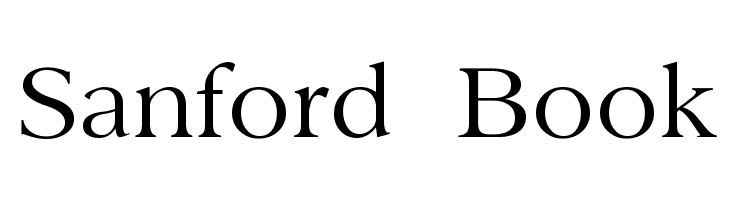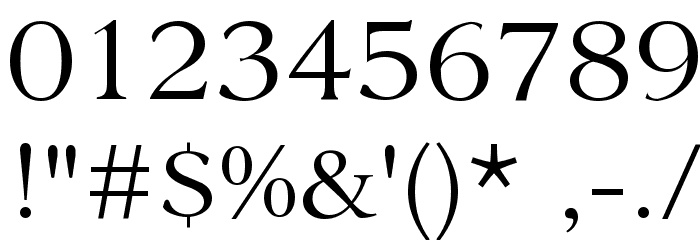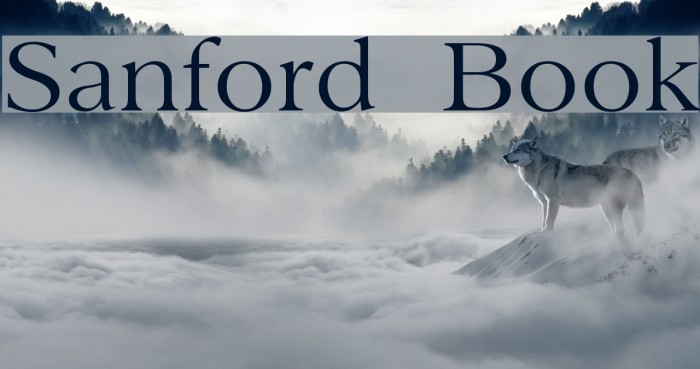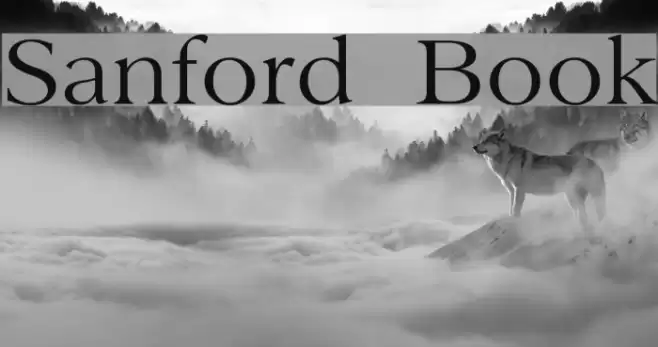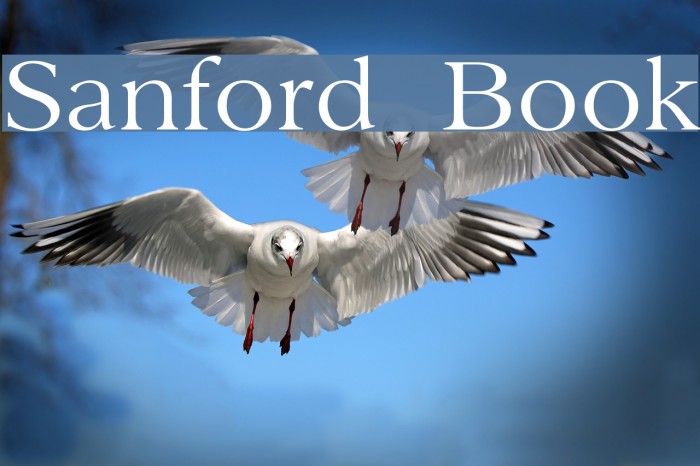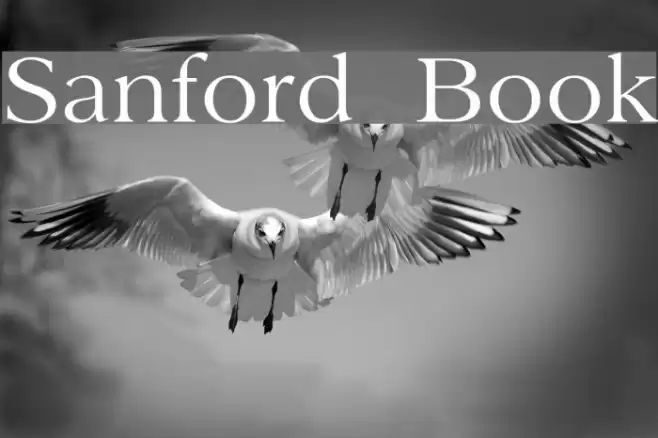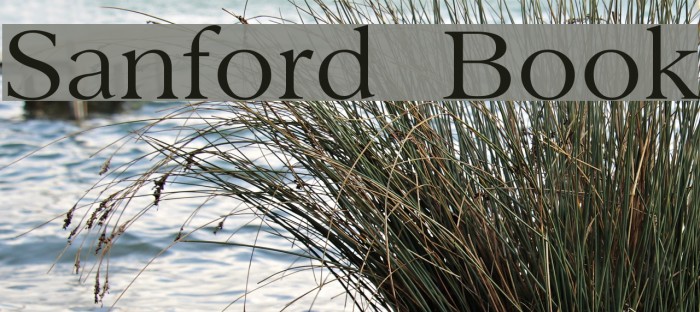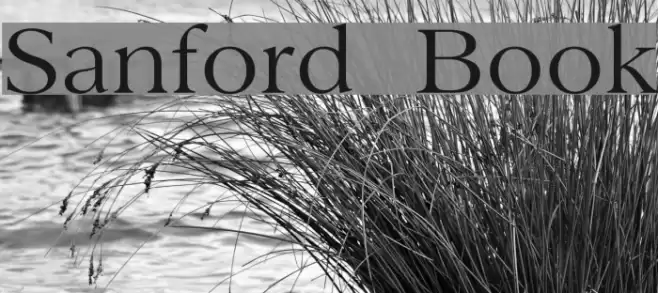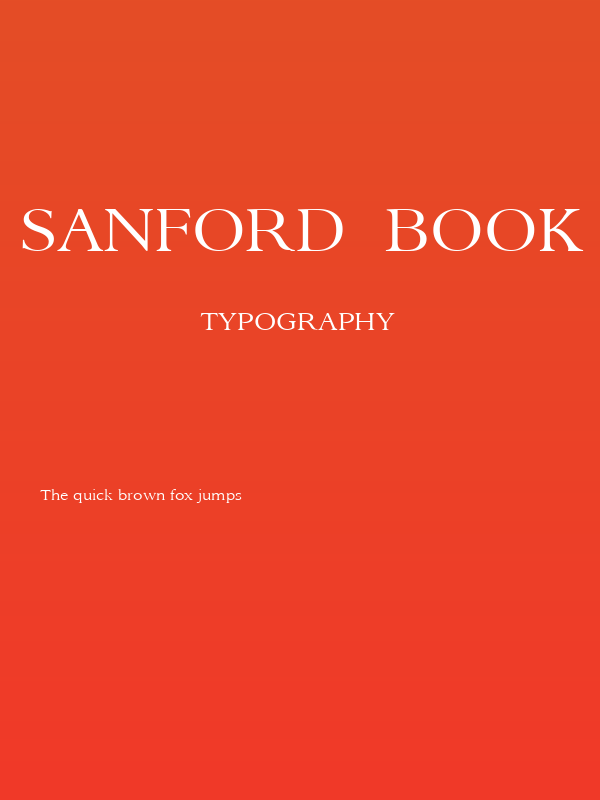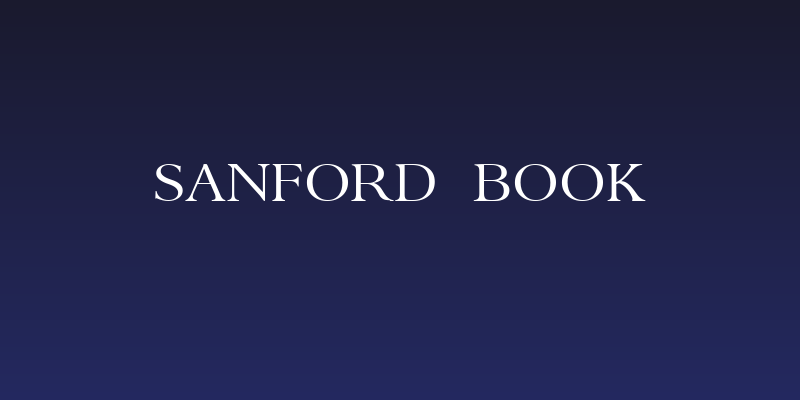
Sanford Book Font
Sanford Book Description
This typeface exudes a classic elegance with its refined serif design. The characters are well-proportioned, featuring a harmonious balance between thick and thin strokes, which enhances readability while maintaining a sophisticated appearance. The uppercase letters stand tall with a slightly condensed form, while the lowercase letters are more rounded, offering a smooth flow in text. The numerals are clear and distinct, ensuring legibility in various contexts. Special characters are crafted with precision, complementing the overall aesthetic. This font is versatile, suitable for both digital and print media, and can be used effectively in a variety of design projects.
| Use Case | Body text, Headlines, Editorial design |
| Proposed Projects | Ideal for editorial design, book covers, formal invitations, and branding materials. |